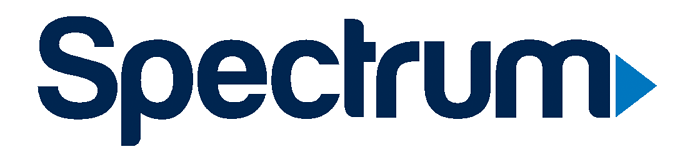
Help to anyone (@RedKittieKat specifically, ha) who can identify this font. I feel like an idiot really. I feel like this is a “standard font” and I should recognize it. It is similar to trebuchet in a lot of ways, but the sloped M and the lowercase e are off, and the slight angle to the top of the lowercase l.
Similar to Myriad, but that’s not it. So I suppose that’s a “no,” I don’t know what font that is.
Thanks @Steve_O I’m glad I’m not going crazy. It does look similar to a few things, but I can’t seem to find a match.
Whatever it is, that ‘e’ is positively painful.
Yes, it appears to be a somewhat inept attempt at a Myriad clone.
Oh – and the kernings. Shoot me now.
@CraigB Looks like it could be Fira Sans Reg
If it is, it’s a pretty poor copy of it. Can’t see Mr Spiekermann making those kinds of typographic faux pas.
Thanks @RedKittieKat It’s close-ish to Fira, but the lowercase c in Fira is more narrow and the lowercase e in Fira is more normal. Lastly the curve at the bottom oof the lowercase l flips up as opposed to ending at a vertical angle. I appreciate it. I may poke around looking a little more. It’s not the end of the world if I can’t find an exact match, but it would be nice to.
I’m just wondering why matching this font is even necessary? There are far better fonts you could use (unless it’s some kind of “Corporate Manifesto” to match it.)
It’s to get a vector version of a logo. I just ended up redrawing it. For how we are using it, which is relatively short term, less than a month and only internally I figured redrawing it was “close enough”.
I’m wondering if someone before you had to redraw it, but perhaps they weren’t completely accurate. It’s so close to a few .. but I just can’t find a dead ringer match ![]()
I hate not being able to find a perfect match. It’s a compulsion ![]()
Unless the client insisted on that exact wordmark, I likely would have considered doing them a favor and using RKK’s suggestion of Fira Sans. It’s essentially the same thing, only drawn better.
I normally wouldn’t attempt to improve a client’s logo without mentioning it to them, but I suspect they wouldn’t care or notice in this instance. Otherwise, they would never have used it to begin with. Then again, I wasn’t there. ![]()
It is a clunky logo for sure, and @RedKittieKat I know you want to find it, but redrawing it is fine. I was just trying to avoid that. It’s a done deal. Thanks everyone.
Okay, as long as you spent minutes (instead of hours) to do it. Personally, if I were the company’s designer, I would fuss at management until management let me change (sic: “Improve”) the whole thing.
Sounds like the Poster is an in-house designer, pleasing management, not a client. This whole thing reminds me of the “Spectrum” cable company logo in our area, which is a mucked-up and badly tweaked version of helvetica.
I just looked it up. Yes, it’s more than a little awkward. I’m all for customizing wordmarks, but I don’t think most realize that it’s harder to do well than it might seem.
I heatily agree, Just-B — It’s a total abomination! — What a MESS!
I can just imagine the conversations about their new logo that went on in the Board Room. "Hey, we don’t need a professional graphic designer to do this. My (husband / wife / cousin / child / grandchild, etc.) is an “artist”, why don’t we get (him / her) do it?
It’s like the old phrase that describes the definition of a Camel … It’s a Race Horse that was put together by a committee,"